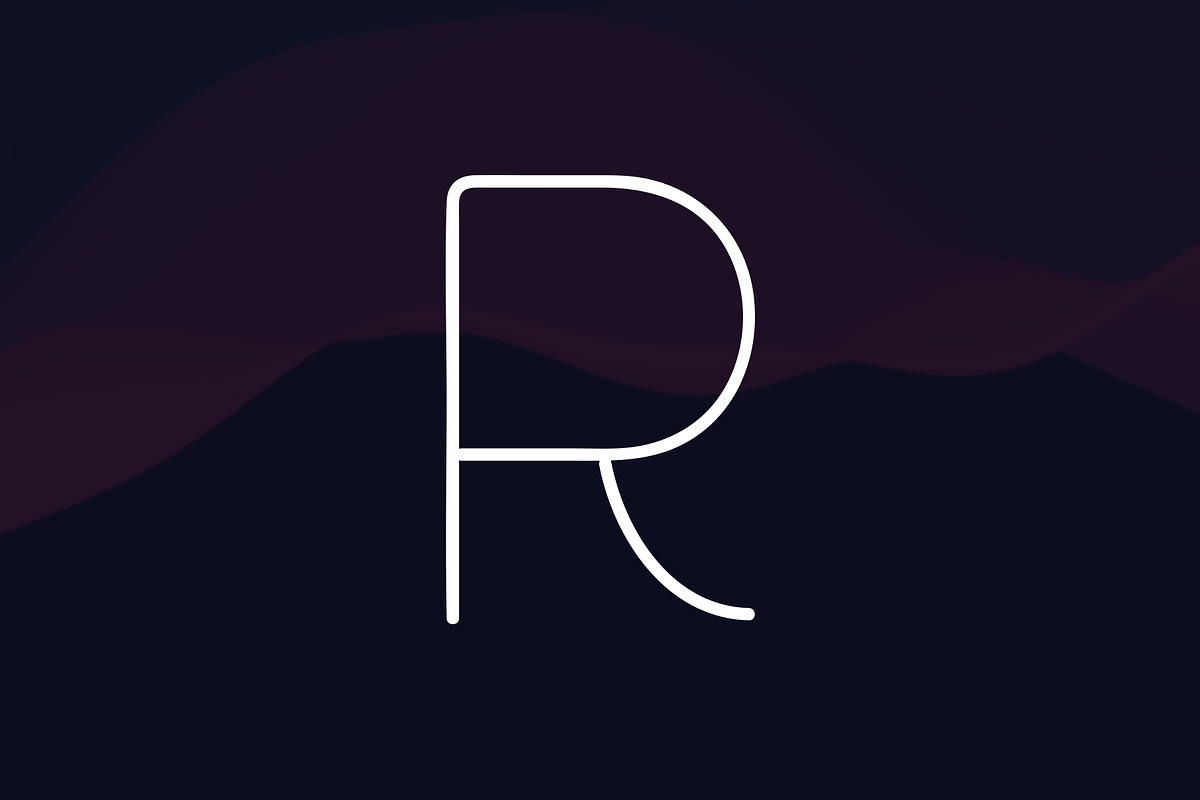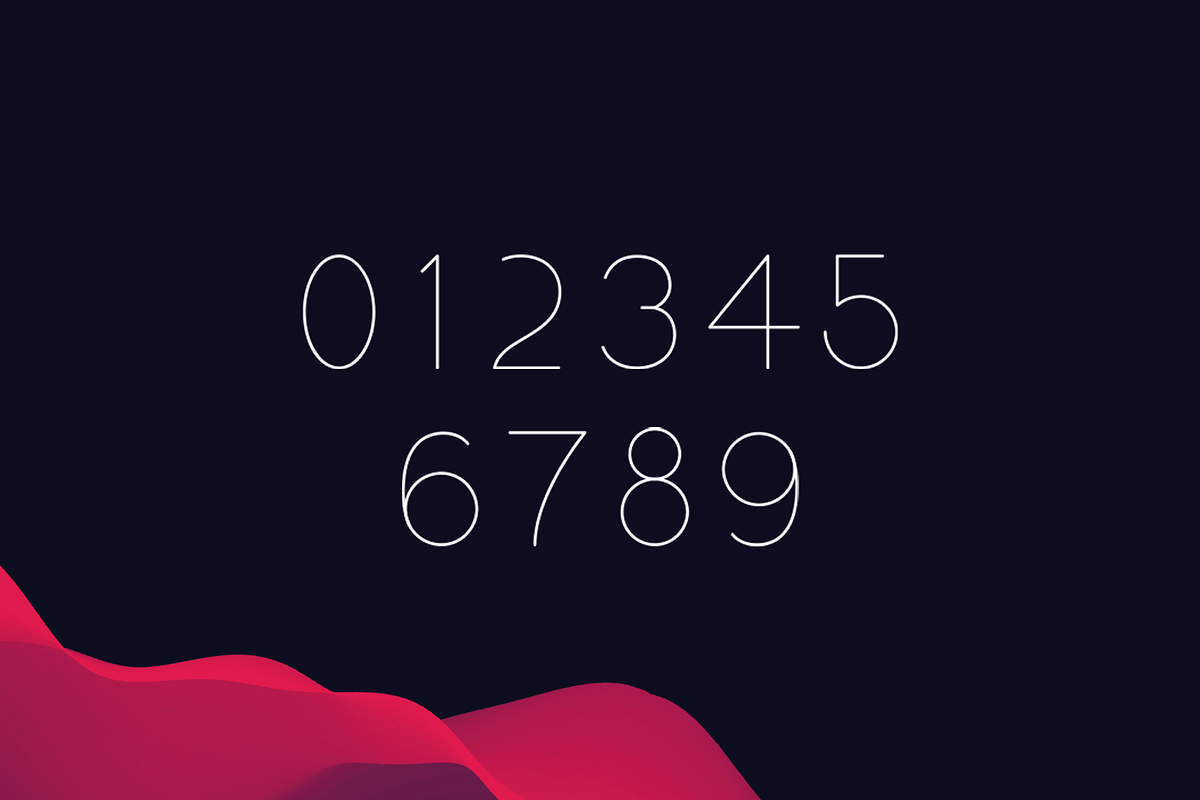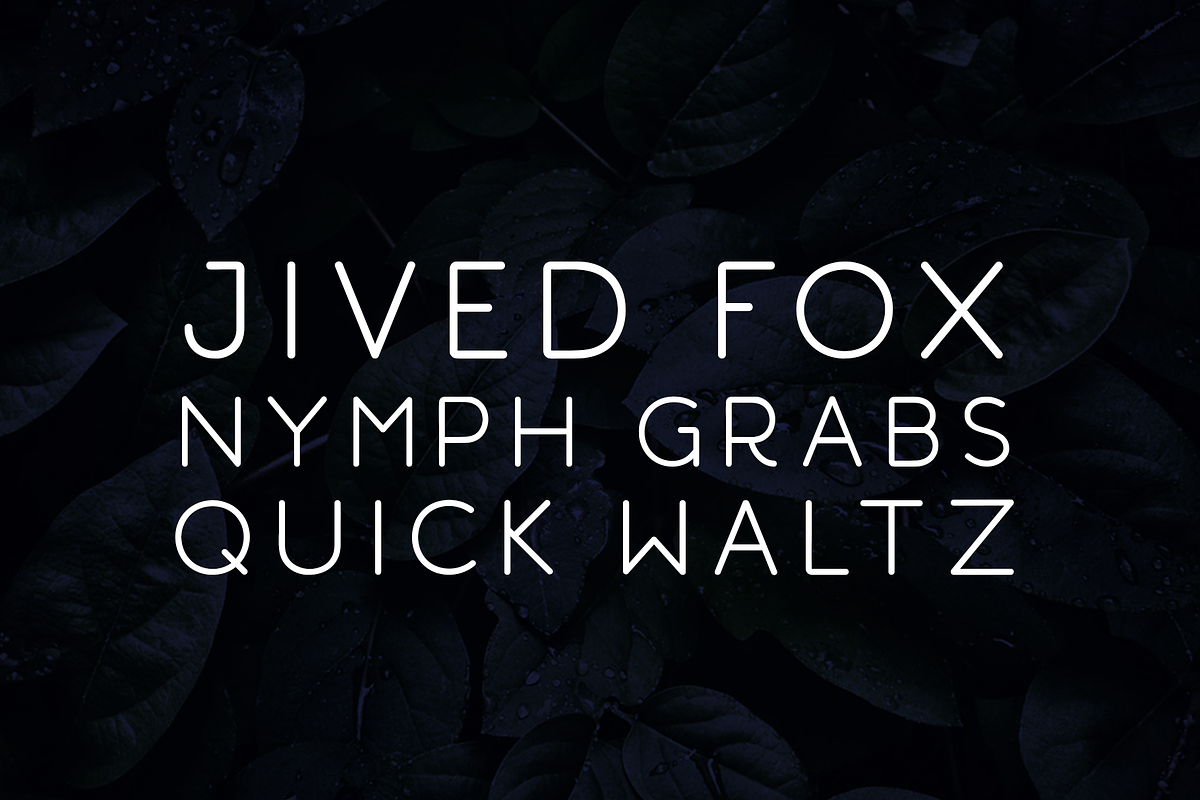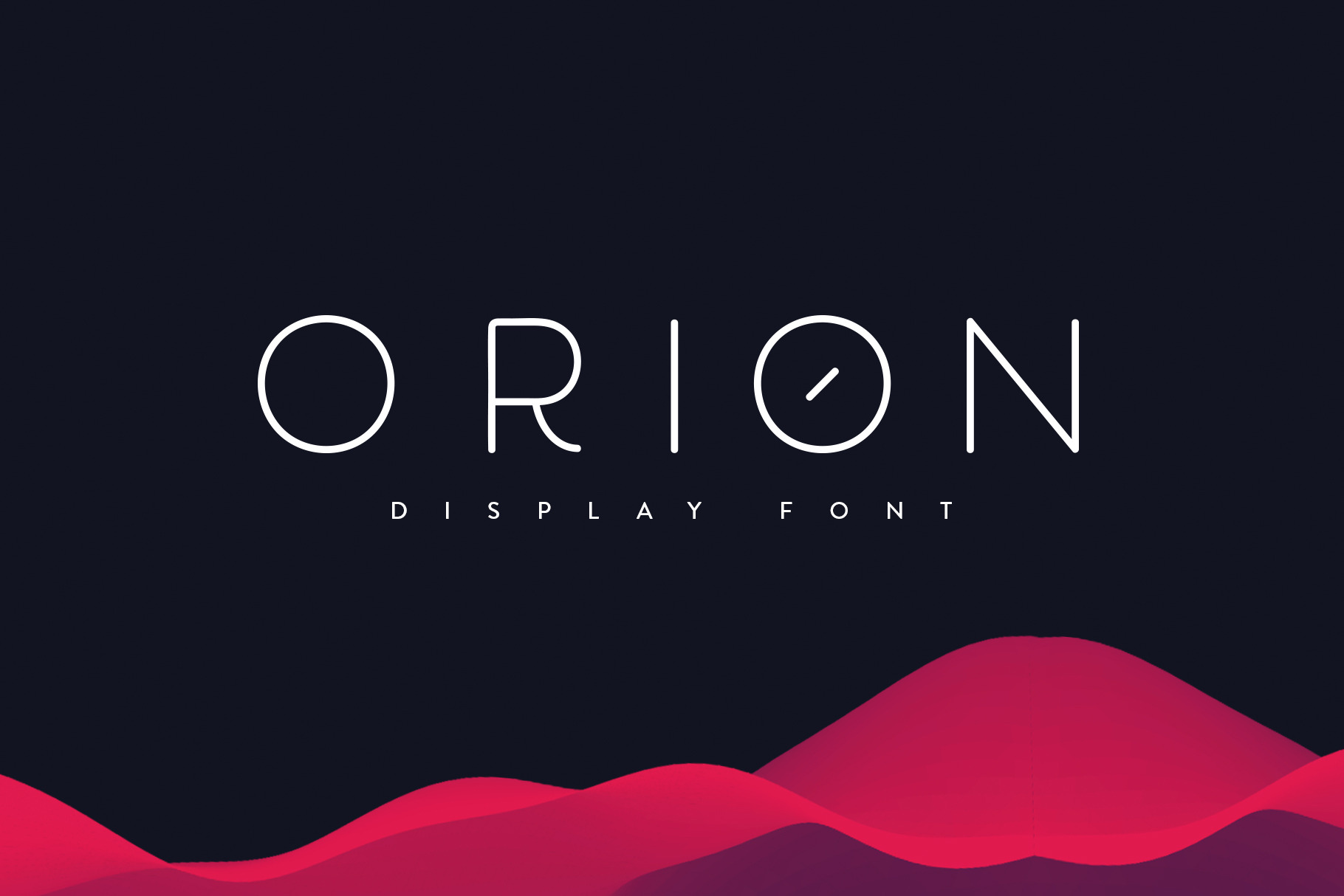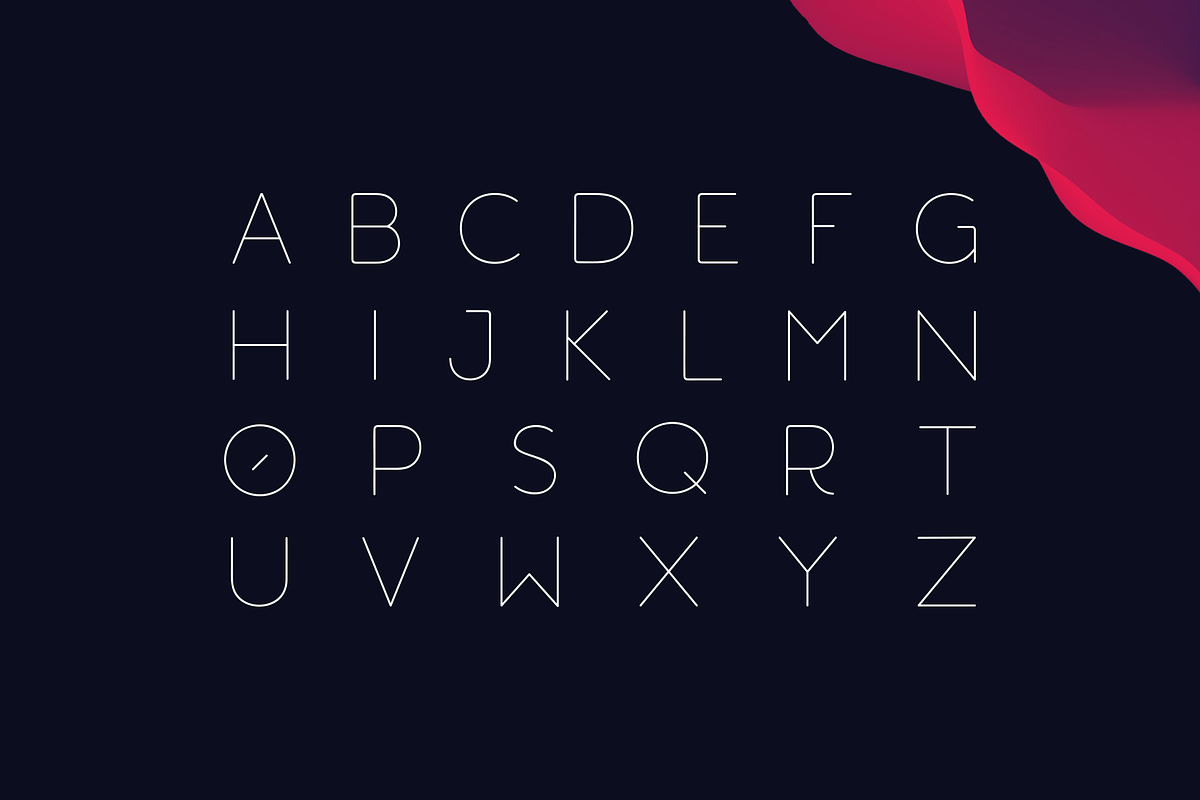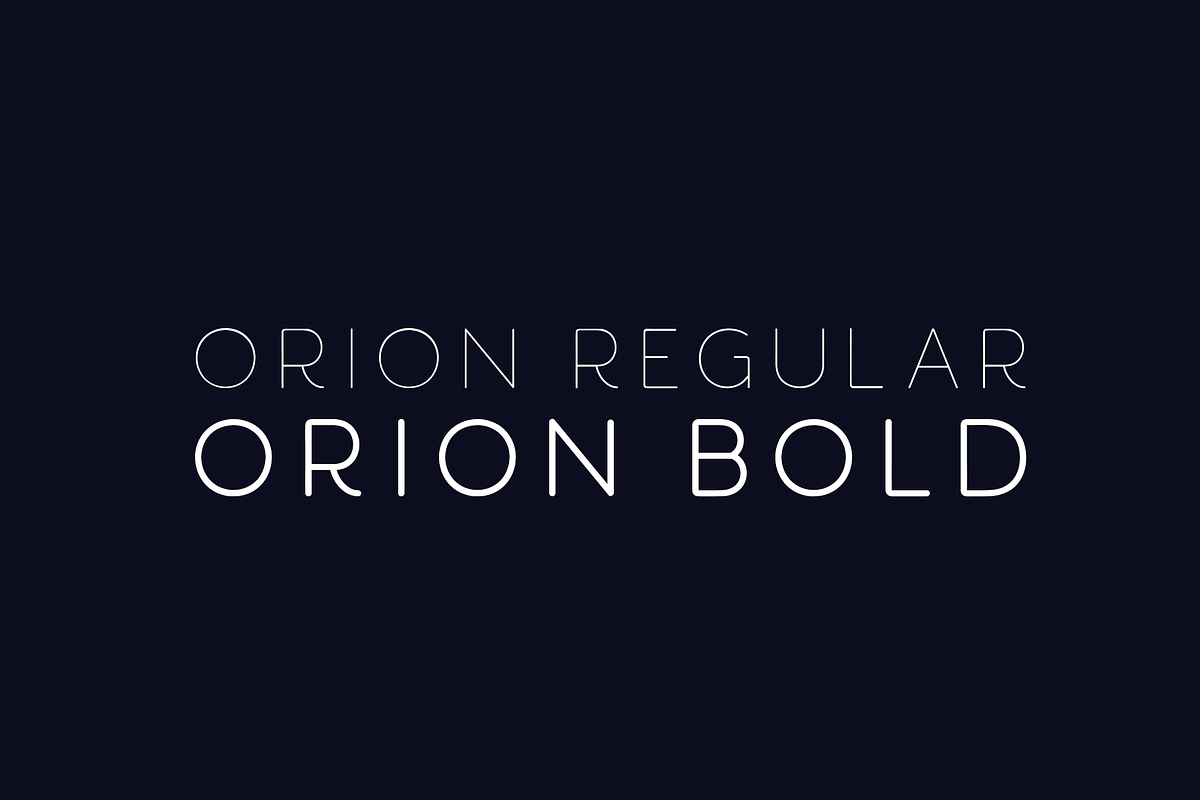
Orion | Display Font
Orion is a minimalist geometric typeface inspired by Gotham. It has distinctive letterforms, with a rounded, geometric outline. Ideal for headlines, invitations, identity, short sentences, logos and posters.
It is a single-weight typeface that includes:
- Multiple Weights
Part of the Geometrica series; Orion is most suitable as a decorative display font.